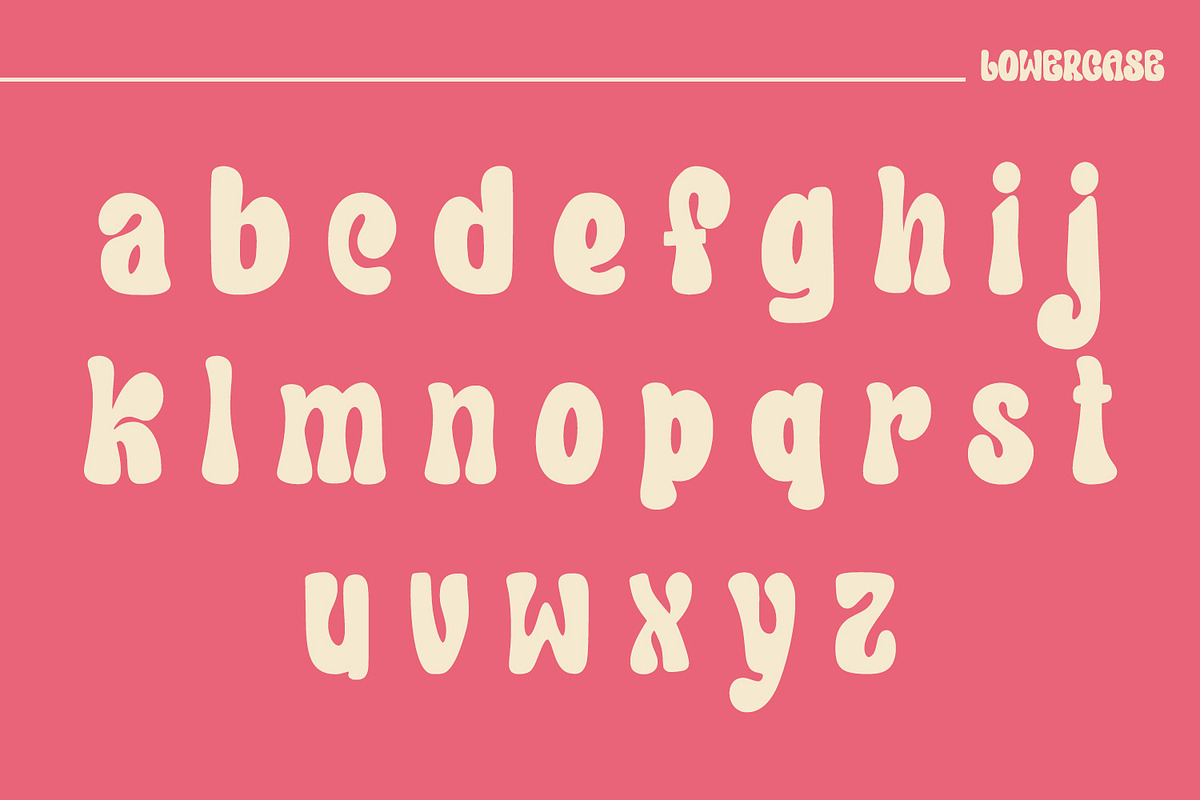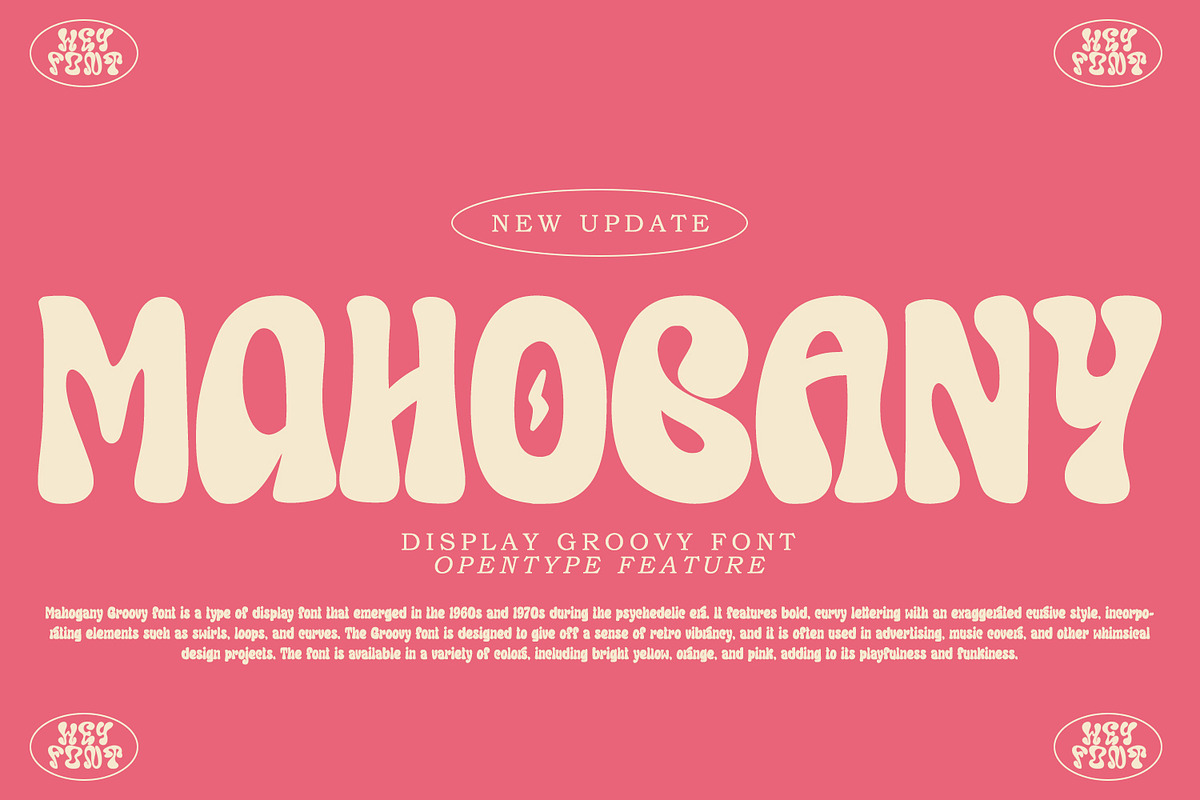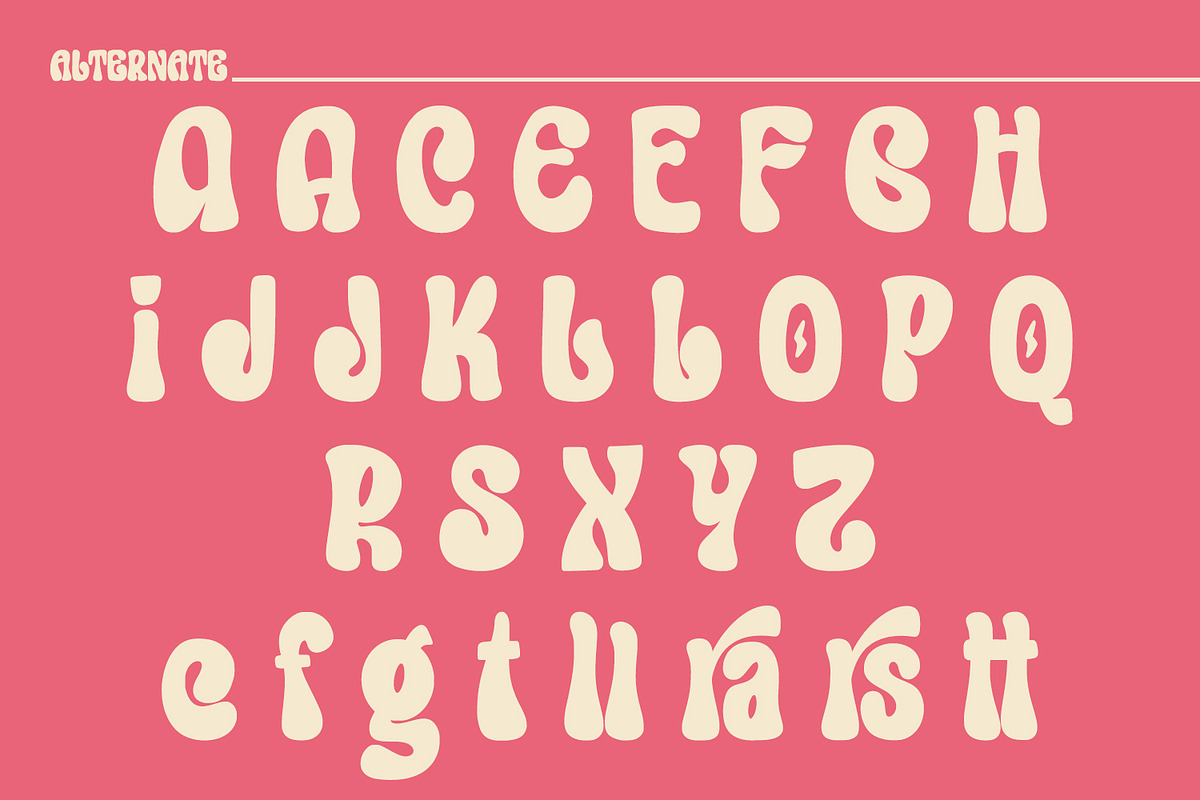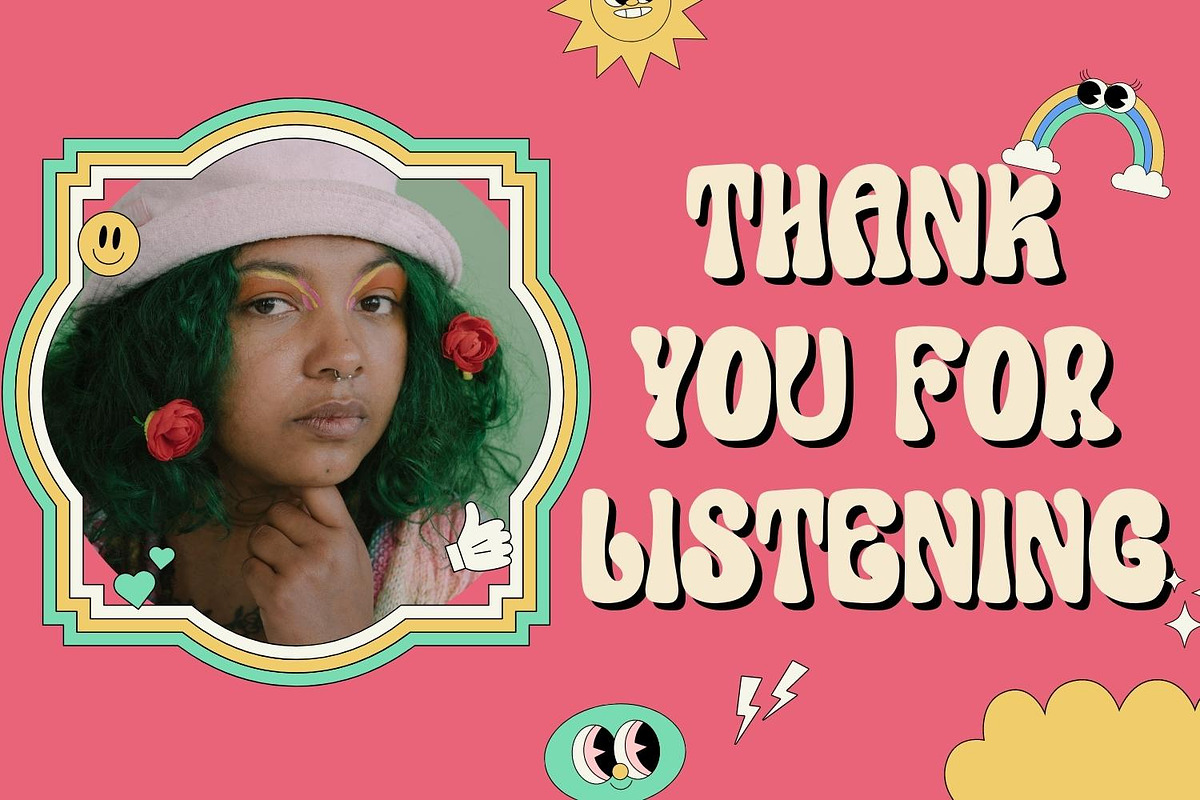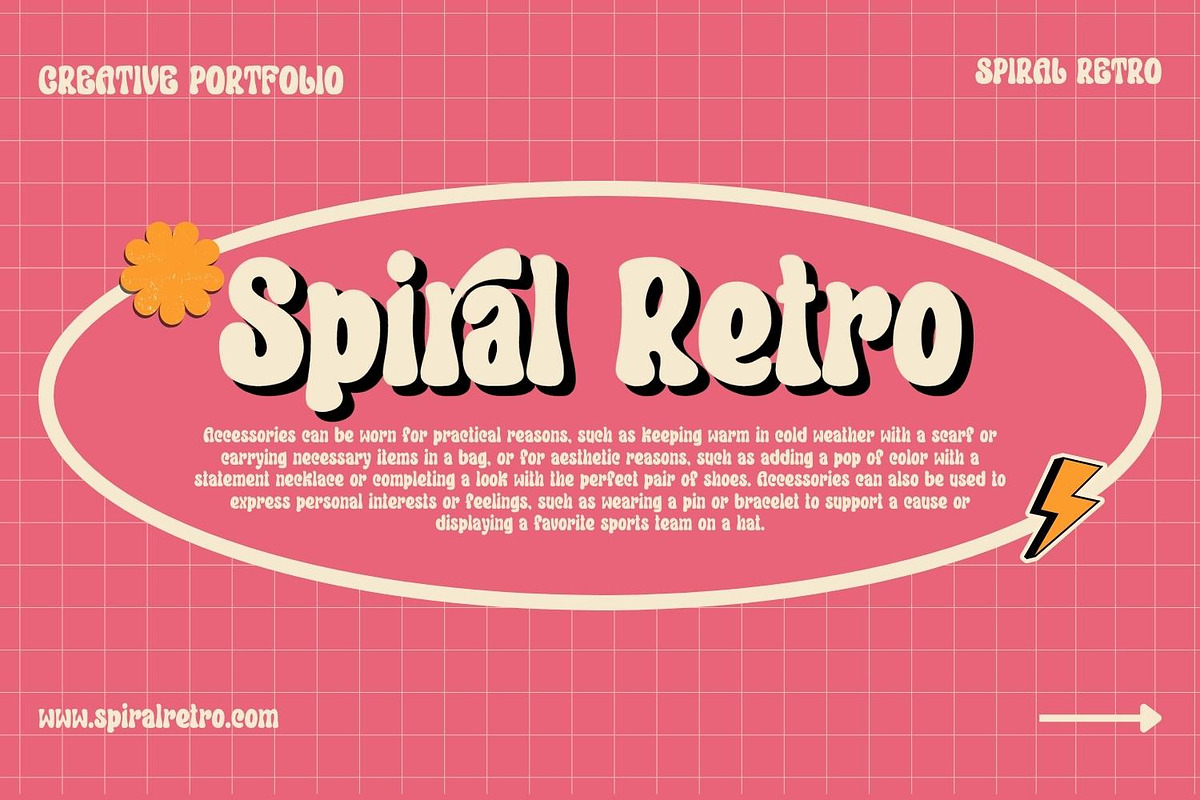
Mahogany - Groovy Font | NEW UPDATE
Mahogany Groovy font is a type of display font that emerged in the 1960s and 1970s during the psychedelic era. It features bold, curvy lettering with an exaggerated cursive style, incorporating elements such as swirls, loops, and curves. The Groovy font is designed to give off a sense of retro vibrancy, and it is often used in advertising, music covers, and other whimsical design projects. The font is available in a variety of colors, including bright yellow, orange, and pink, adding to its playfulness and funkiness.